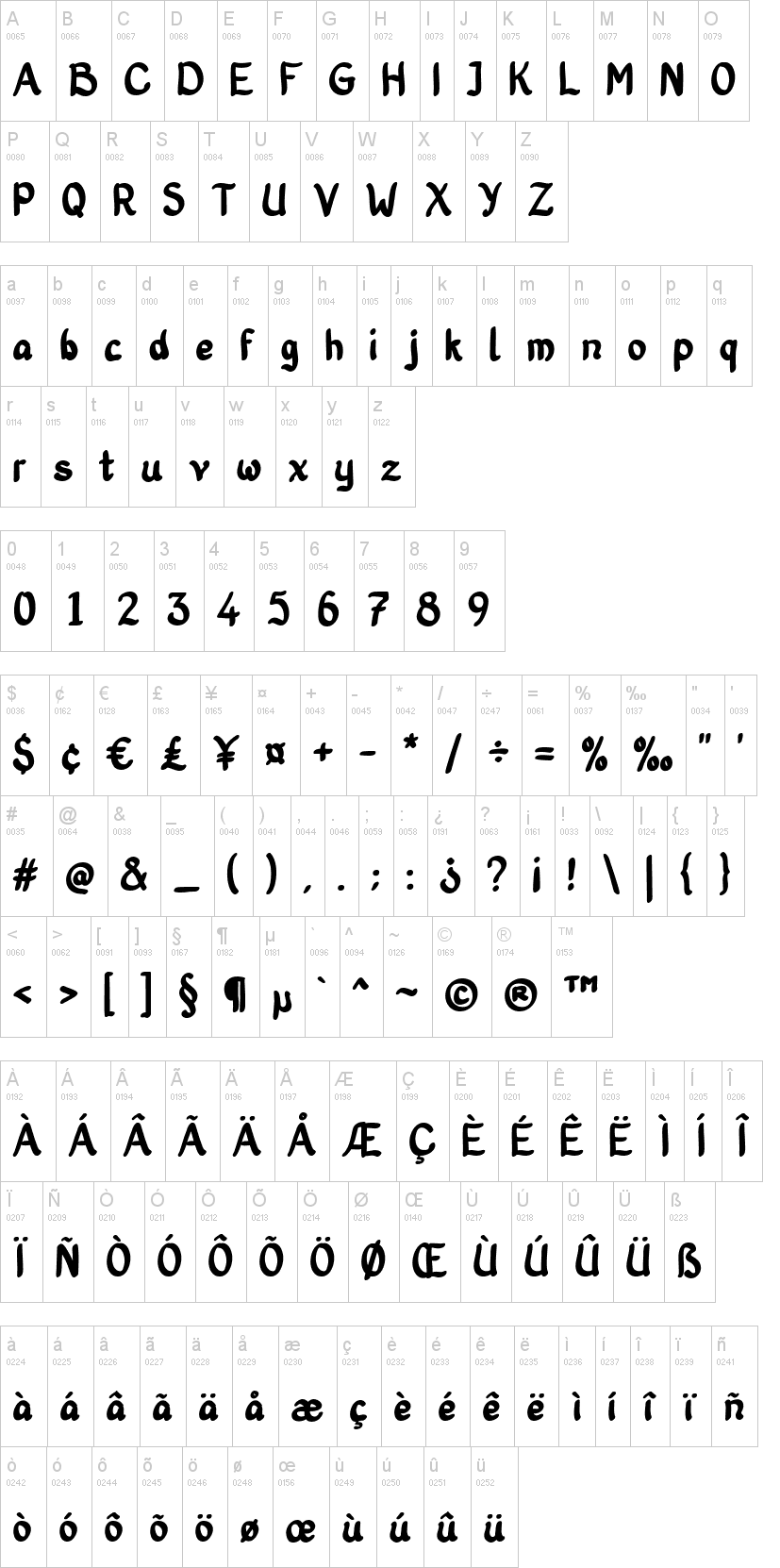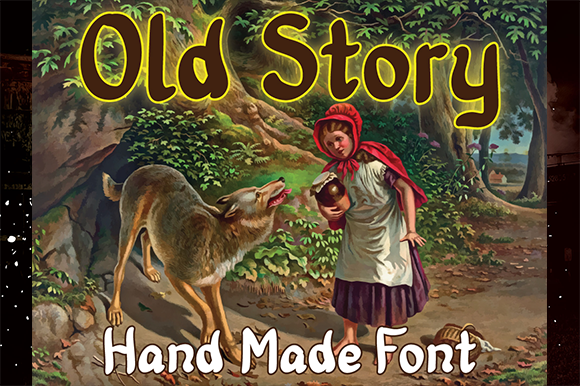
Introducing bold handmade font. This font nice for fill your description text, comic text, game, or anything who need handmade touch.
This font contain 342 glyphs with complete punctuation and supported to basic Latin language, Turkish, and Eastern Europe.